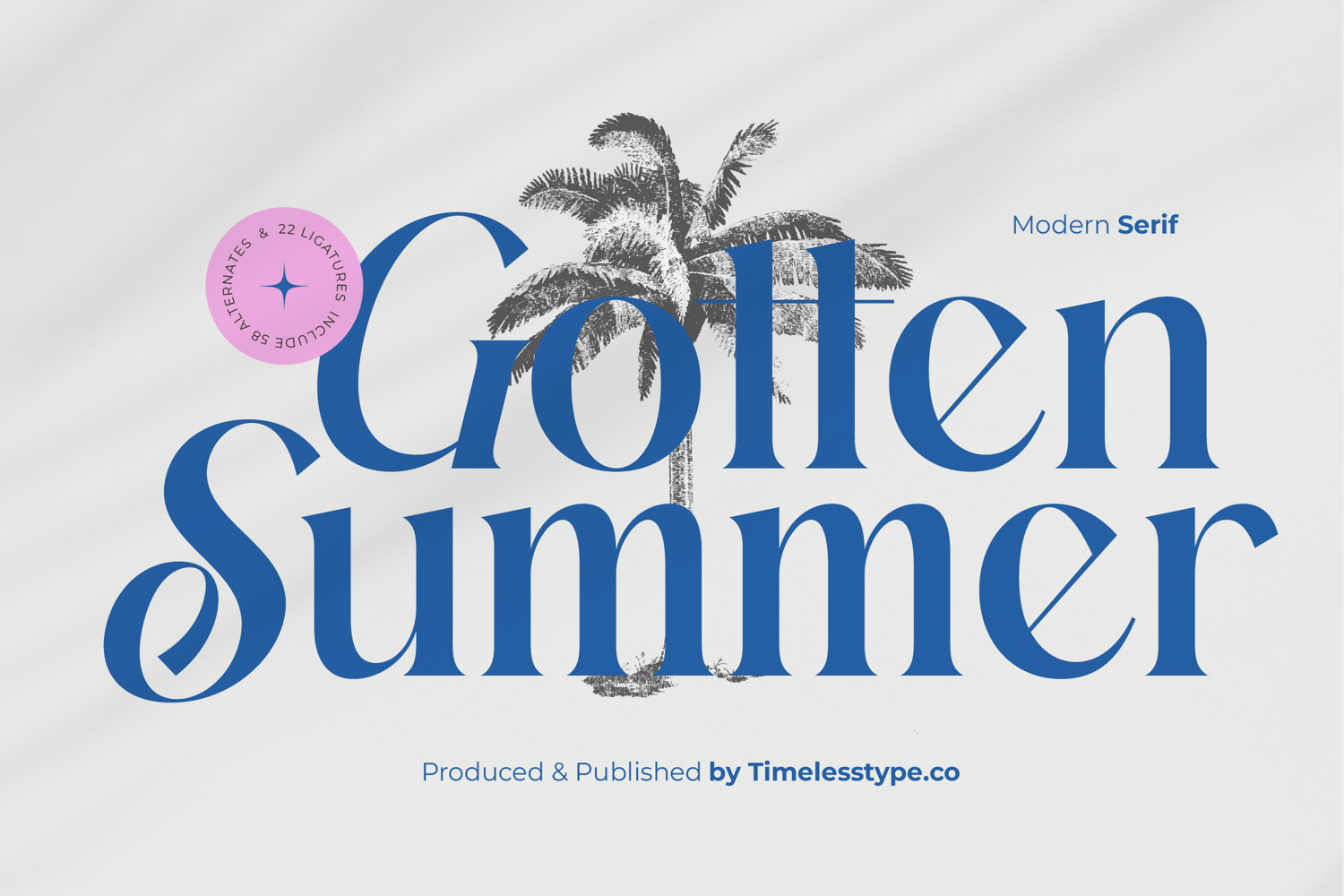
Gotten Summer - Modern Serif Font
Elevate your designs with the exquisite charm of Gotten Summer - Modern Serif Font. This typeface embodies a perfect fusion of classic elegance and contemporary flair, making it an indispensable asset for discerning designers. Its high-contrast strokes and sophisticated, flowing curves command attention, lending a truly luxurious and polished aesthetic to any project. Gotten Summer - Modern Serif Font brings a timeless charm with a distinctly modern edge.
Designed for impact, Gotten Summer - Modern Serif Font stands out with its meticulously crafted letterforms and delicate serifs. It is perfect for creating a powerful visual statement across various mediums. This font is ideally suited for luxury branding, high-end packaging, editorial design, fashion spreads, and elegant website headlines. Its versatile display qualities ensure your message is always delivered with sophistication and clarity.
Unleash unparalleled creativity with the extensive features of Gotten Summer - Modern Serif Font. Boasting 58 alternates and 22 ligatures, it offers abundant opportunities for unique typography and custom textual arrangements that truly reflect your brand's personality. With its extensive multilingual support, Gotten Summer - Modern Serif Font adapts seamlessly across global markets, making it incredibly versatile for international projects and diverse communication needs.